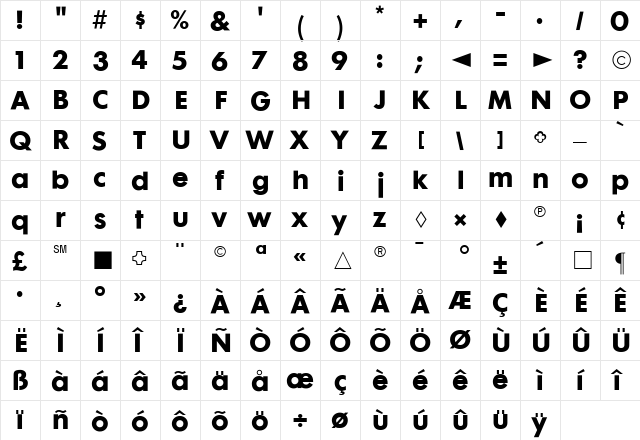
CgFuturaMaxi Bold Font Preview
CgFuturaMaxi Bold
Design Context for CgFuturaMaxi Typeface
CgFuturaMaxi has a distinctly futuristic character, with geometric precision and clean angles that feel at home in technology, gaming, and sci-fi contexts. The heavy weight commands attention and anchors typographic hierarchies.